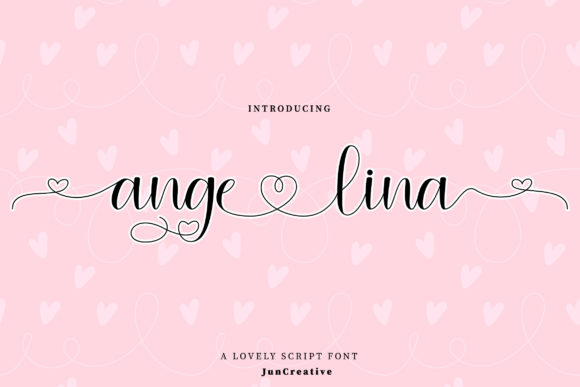
The Designer’s Delight: Getting to Know Angelina Font
I still remember the time I was working on a project for a client who wanted a elegant and whimsical touch to their branding. I had spent hours scouring through font libraries, but nothing seemed quite right. That was until I stumbled upon Angelina Font. It was love at first sight! 💕 The delicate, stylish, and whimsical script font instantly elevated my design, and I knew I had found the perfect fit. In this article, I’ll share with you why Angelina Font is an incredibly valuable asset to your font library and how you can make the most of its features.
An Honest Review of Angelina Font
- ✨ Delicate and elegant design that’s perfect for a variety of projects
- ✅ Whimsical touch that adds a personal feel to your creations
- 💻 PUA encoded for easy access to glyphs and swashes
- 🌈 Highly versatile and can be used for a range of topics and industries
While Angelina Font is an amazing addition to any font library, there are a few things to keep in mind. 🤔 For example, some users may find that the font can be a bit finicky when it comes to kerning and spacing. ⚠️ Additionally, the font may not be suitable for very large or very small text sizes.
The Story Behind Angelina Font
Angelina Font was designed with the intention of creating a beautiful and elegant script font that would add a touch of whimsy to any design. The designer wanted to create a font that was both refined and playful, making it perfect for a wide range of projects. 💫
A: PUA (Private Use Area) encoding allows you to access glyphs and swashes with ease, making it simple to customize your text and add unique touches to your designs.